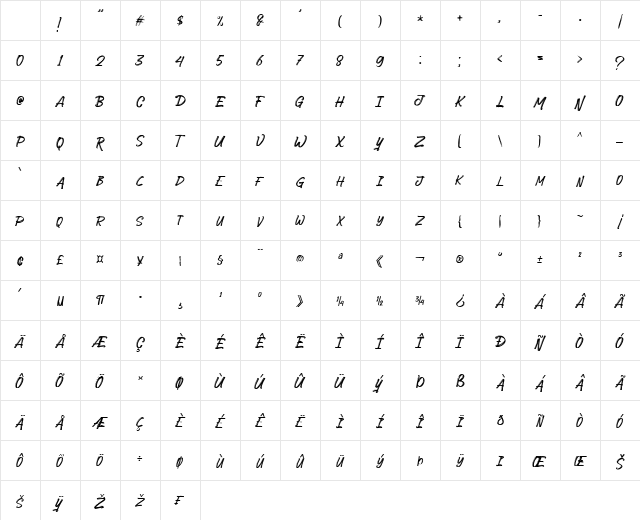
Complete Button Grinder FreePersonal Use Display glyph index. Displaying only characters natively supported by Button Grinder FreePersonal Use Display font.
Button Grinder FreePersonal Use is built around its visual character rather than neutral utility - its distinctive forms are designed to make an impression at display sizes.
Font Pairing: Pair with a clean neutral sans-serif for body copy to let Button Grinder FreePersonal Use's character lead without overwhelming the composition.
Pro Tip: Use Button Grinder FreePersonal Use exclusively at display sizes - it was designed to be seen, not read at length. Let a neutral companion handle body copy.